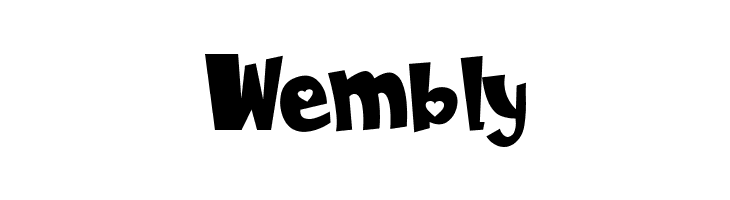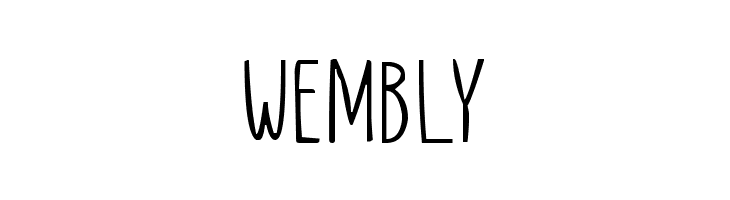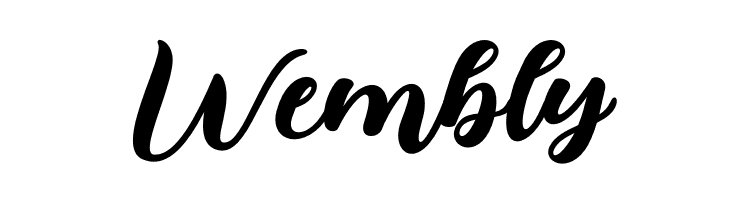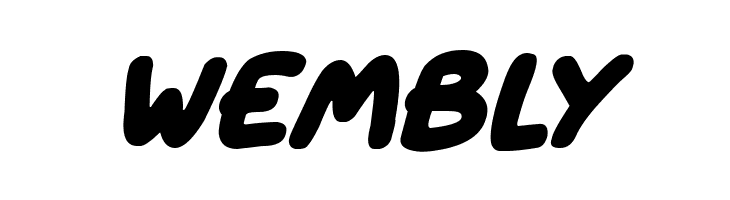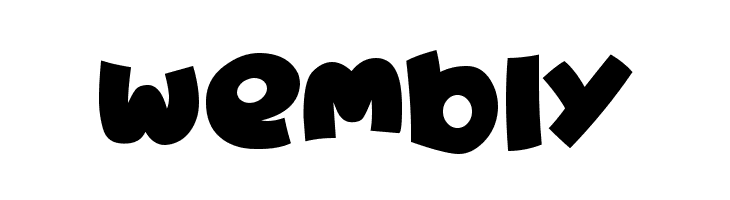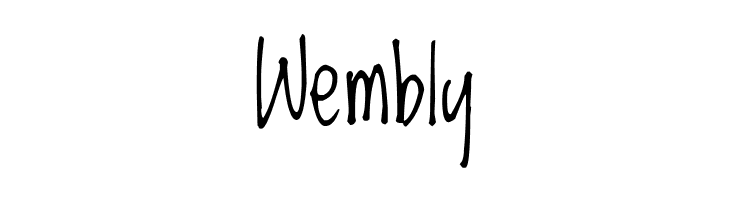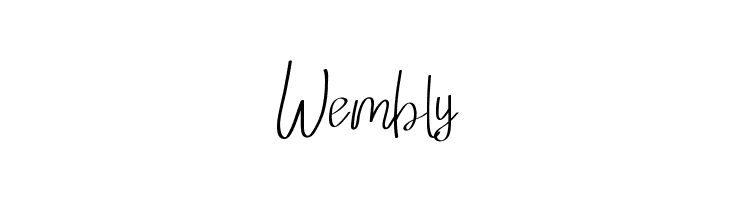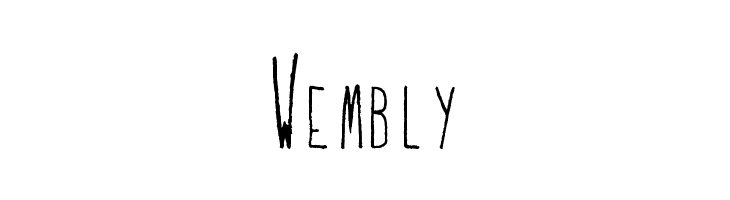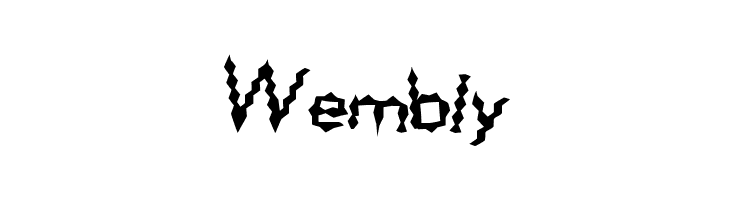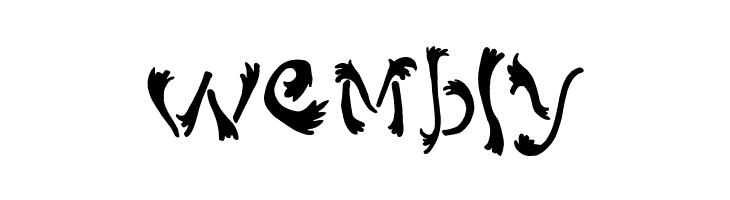
A bold, flowing script font with dynamic curves and elegant flourishes.
A playful, handwritten font with a casual and informal style.
A sophisticated cursive font with elegant, flowing strokes.
A playful, bubbly font with rounded, thick strokes and a friendly appearance.
A playful, bold, and italicized font with rounded characters.
A playful, bold font with rounded, cartoonish characters.
A bold, expressive handwritten font with a lively and dynamic style.
A playful, heart-themed font with bold, chunky letters and whimsical charm.
A playful, handwritten font with tall, narrow letters and a modern feel.
A romantic script font with heart motifs and flowing cursive style.
A whimsical, hand-drawn font with irregular, artistic strokes.
A playful, handwritten style with smooth, flowing characters and a casual flair.
Playful handwritten script with tall, narrow, and whimsical strokes.
A decorative font with organic, flowing shapes and intricate details.
A bold, playful font with cartoonish serifs and rounded strokes.
A jagged, angular font with a dynamic and edgy appearance.
A bold blackletter font with sharp, angular lines and a gothic style.
A bold, blackletter-style font with ornate, angular letterforms enclosed in squares.
A bold, distressed font with a grunge aesthetic.
A playful and whimsical font with exaggerated curves and artistic flair.
A bold, geometric sans-serif font with a unique horizontal line through each character.
A bold, geometric font with a unique horizontal line crossing each character.
A playful, bold handwritten font with rounded, uniform letterforms.
An elegant italic serif font with a classic and sophisticated style.
A bold, italic, and modern font with a dynamic slant and clean lines.
A bold, blocky font with a vintage woodcut style, perfect for impactful headlines and logos.